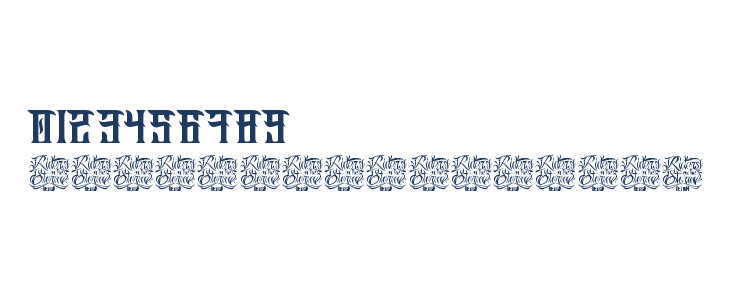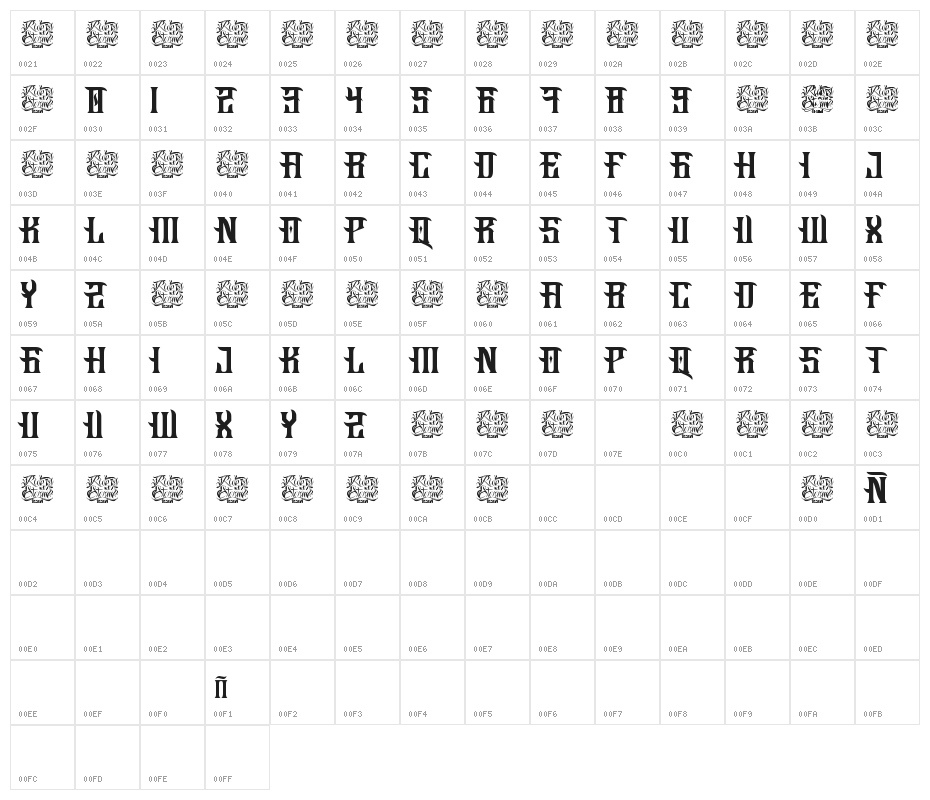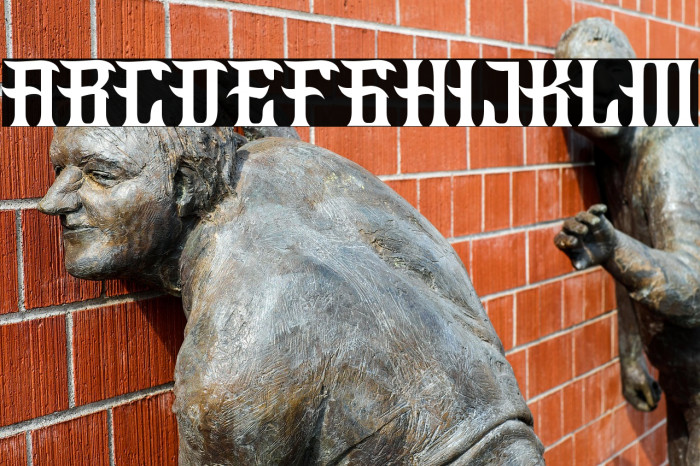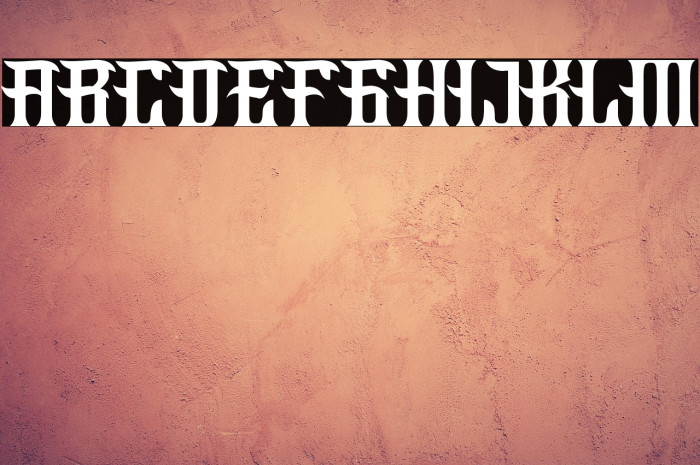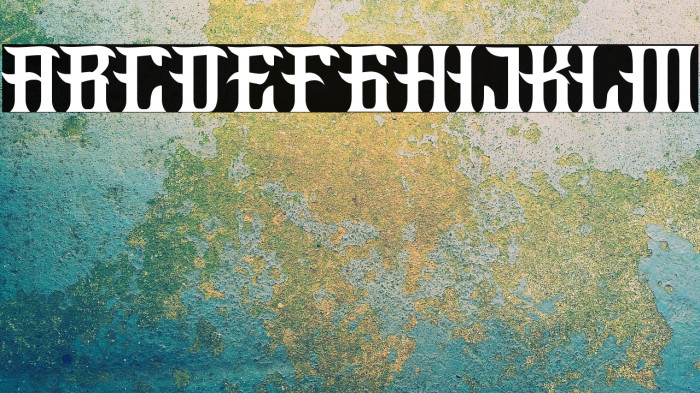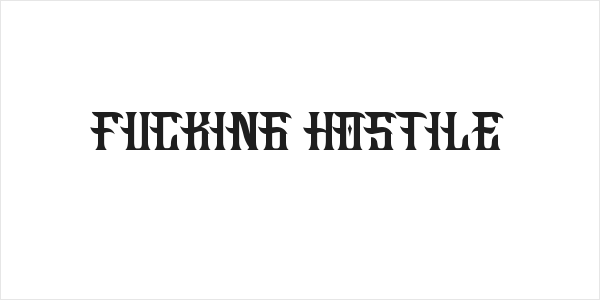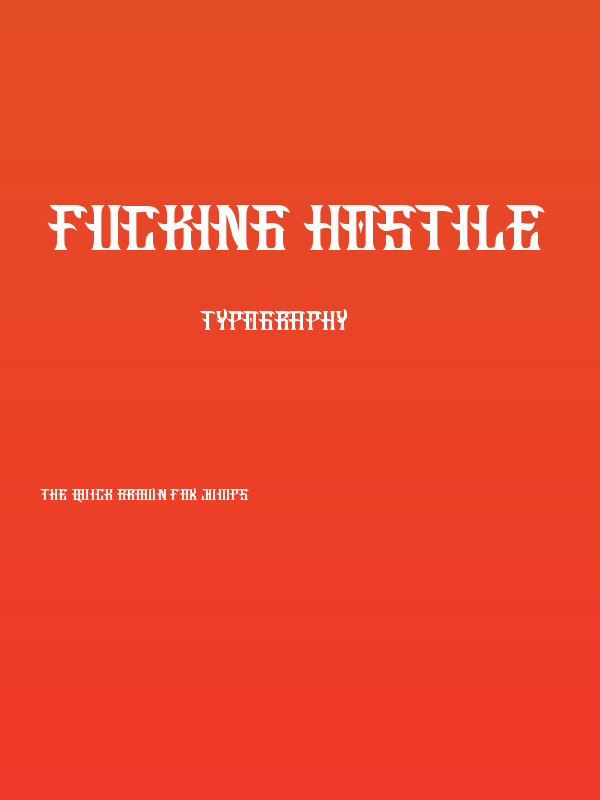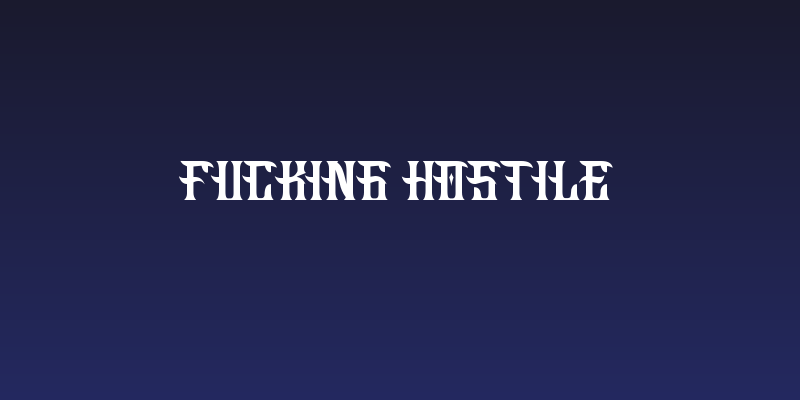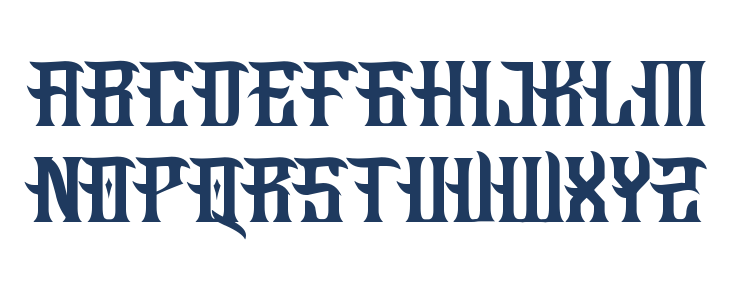
Fucking Hostile Font
Fucking Hostile Description
This font features a bold and aggressive style with sharp, angular lines and a gothic influence. The uppercase letters are particularly striking, with a heavy weight and strong presence. The lowercase letters maintain the same boldness, ensuring consistency across the typeface. Numbers are equally robust, with a distinct medieval flair. The special characters are designed to match the overall aesthetic, making this font ideal for impactful designs. Its unique style is reminiscent of traditional blackletter fonts, yet it carries a modern twist that makes it suitable for contemporary projects.
| Overall Style | Modern Gothic |
| Proposed Projects | Ideal for band logos, posters, tattoo designs, and any project requiring a strong, gothic aesthetic. |